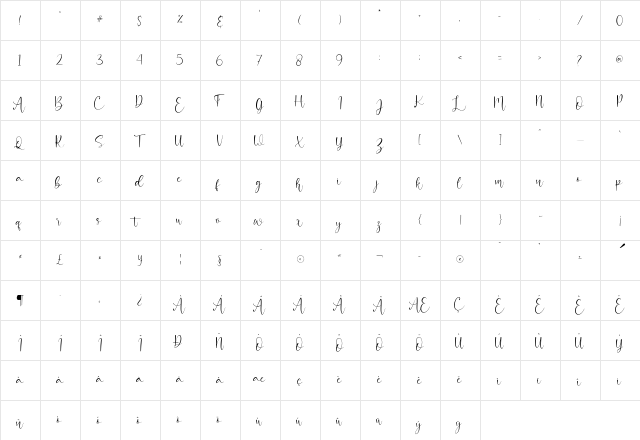
Attractive Regular
Design Context for Attractive Typeface
Attractive is a composed and adaptable typeface that performs quietly and consistently across a wide range of design contexts.
Pro Tip: Pair Attractive with a font of contrasting weight or personality to build a more expressive typographic hierarchy.